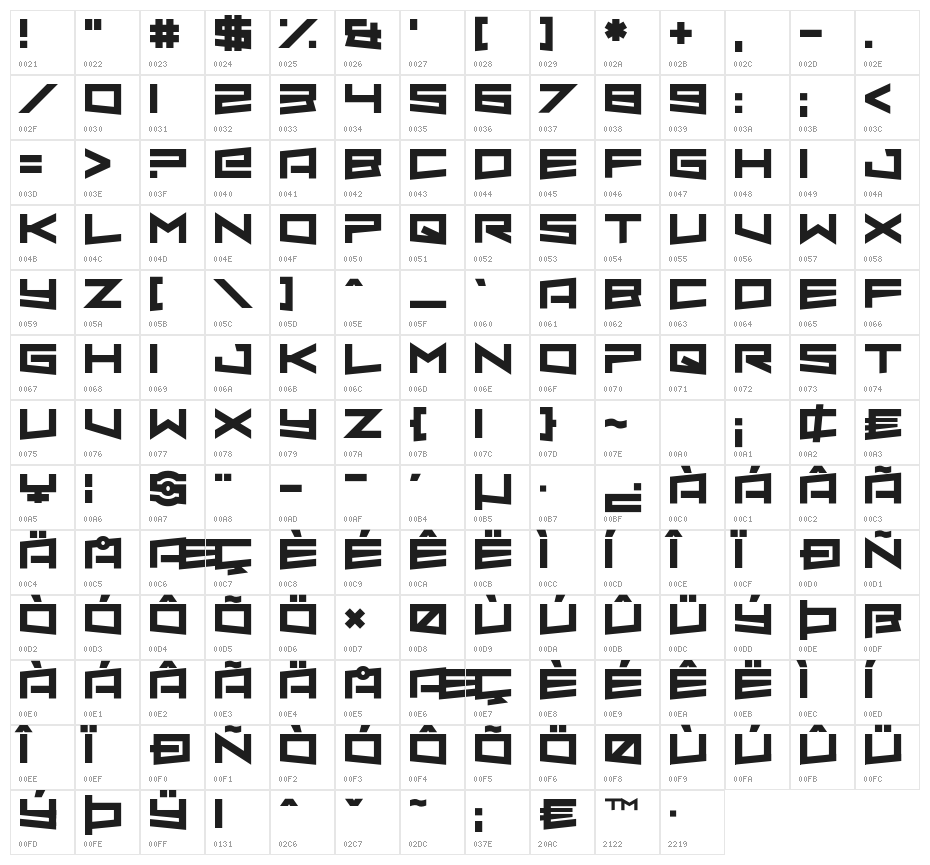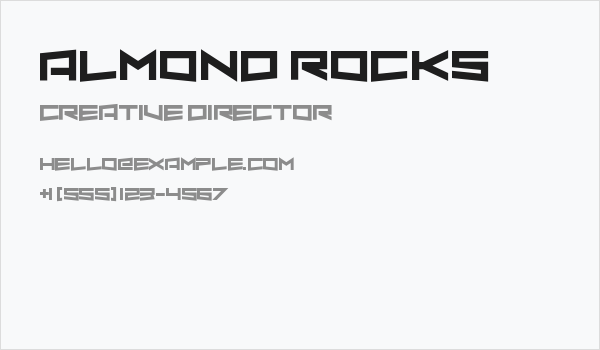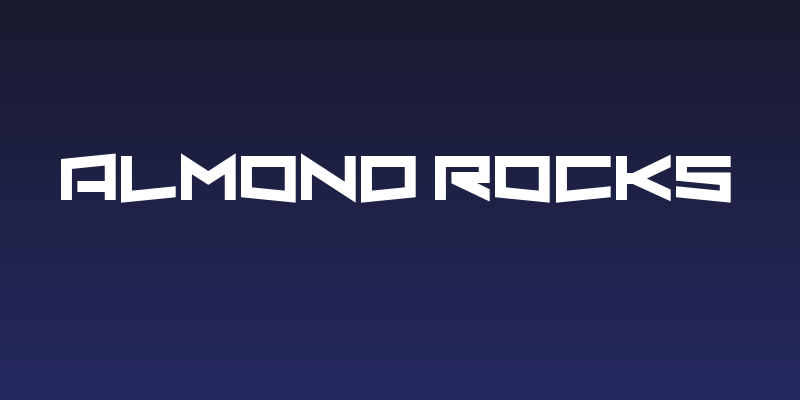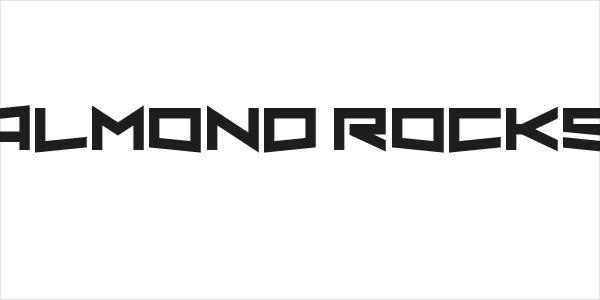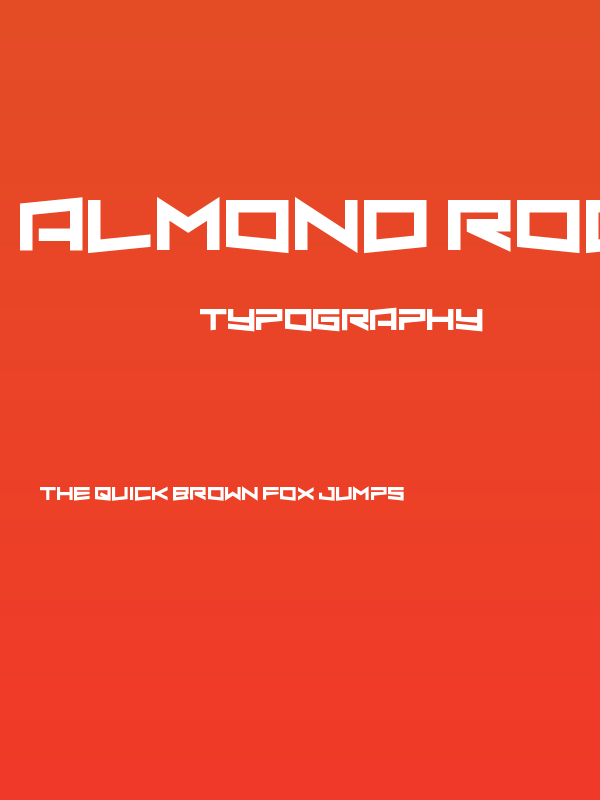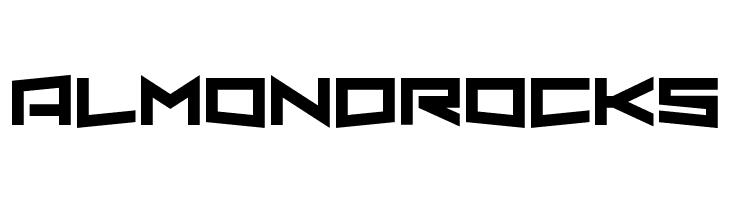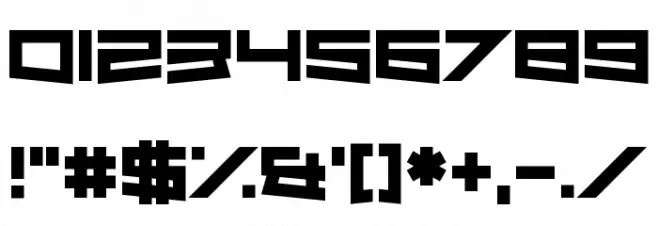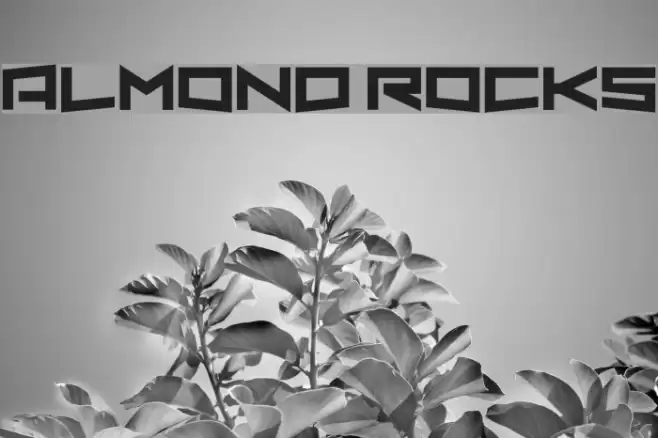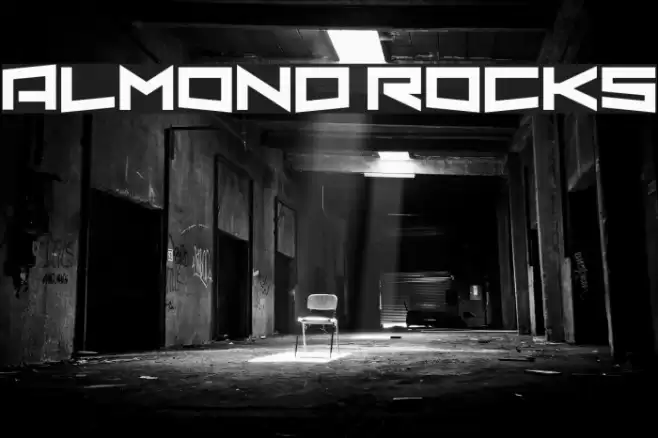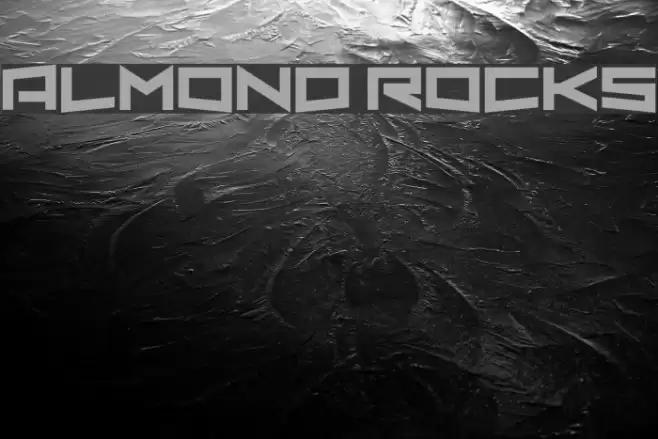
Almond Rocks Font
✎ Modern
| Projets proposés | Ideal for sci-fi themed projects, video game titles, posters, and branding that requires a modern and edgy look. |